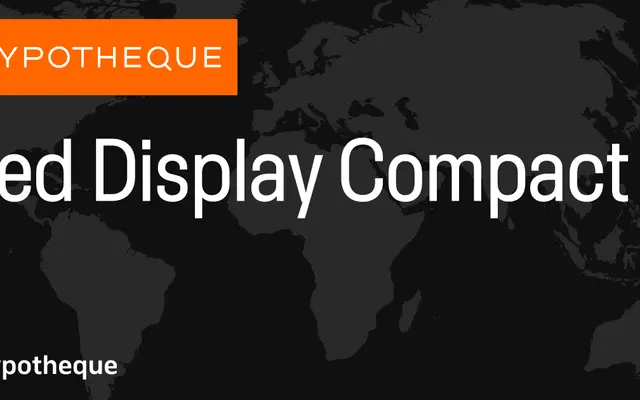
Zed Display Compact
One width variant within Typotheque's vast Zed system, a geometric display sans spanning nine widths, three subfamilies and weights from Hairline to Black.
Zed Display Compact is part of a sprawling type system that runs from Extra-Compressed to Extra-Wide across both sharp Display and rounded Round subfamilies, plus a separate Text subfamily for smaller sizes. Within the Display branch, each of the nine width cuts carries the same full weight range from Hairline to Black, supplemented by Slanted and Backslanted variants, giving designers unusual flexibility across a single coherent design. The system also ships as a variable font, consolidating the width and weight axes into a single file.
Zed is a large variable display system with geometric construction across an extensive width and weight range; the Display subfamily targets headline and large-scale use, with Compact sitting as one of nine width variants.